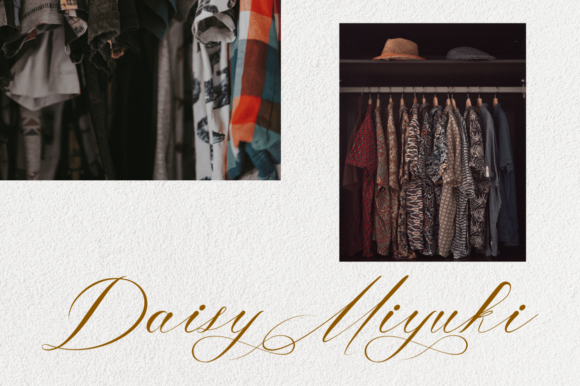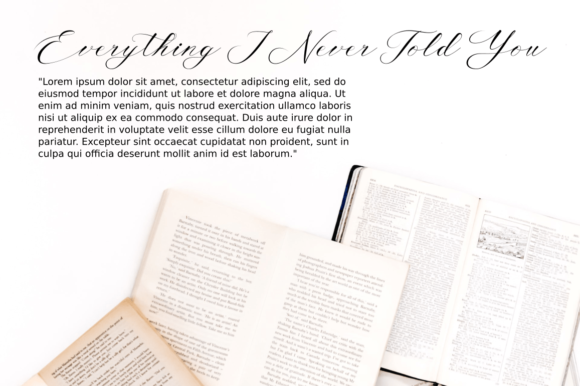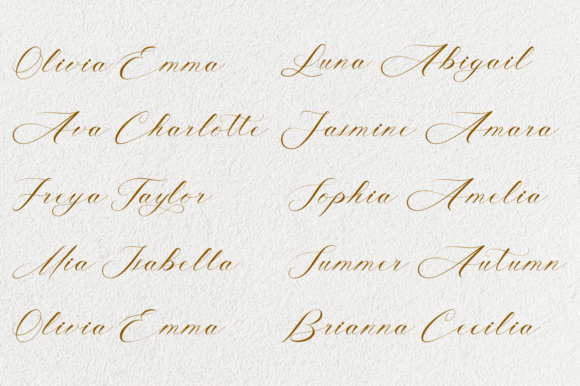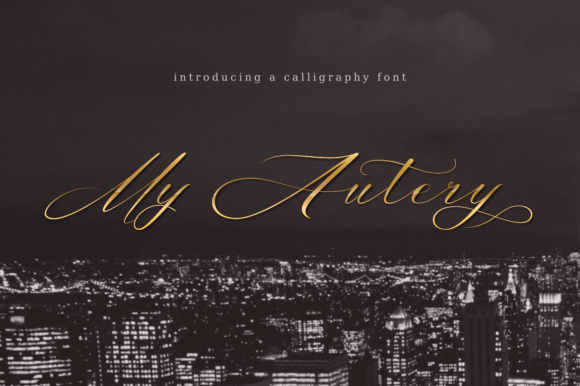
Introduction to My Autery Font
My Autery is a dainty and unique script font.
Add this romantic and lovely looking font to each of your love letters, wedding invitations or favorite design ideas, and you will be astounded by the outcome .